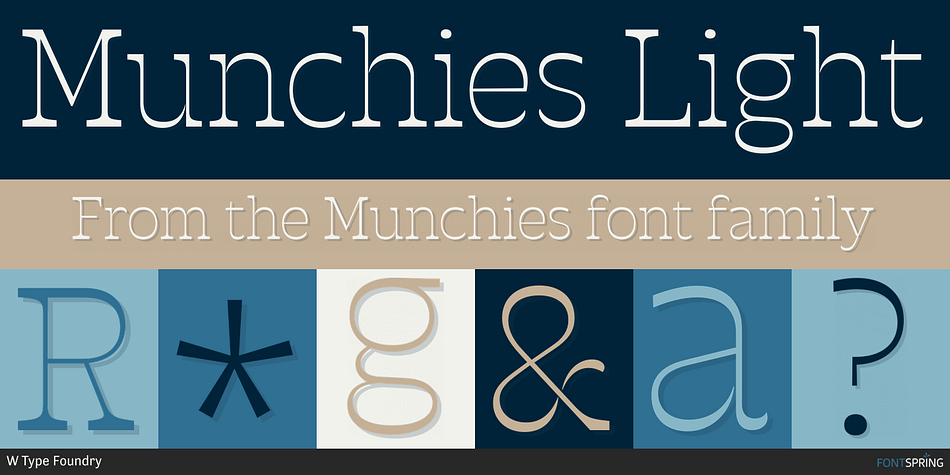
Munchies Light
Designed by Gaspar Muñoz, Munchies is a display serif and western font family. This typeface has fourteen styles and was published by W Type Foundry.
Munchies is a reverse contrast slab-serif font family. Inspired by the volume and size of 19th century wood letterpress blocks and the Italian Caslon language. Munchies has 12 variants, from Heavy to Thin, with opentype options in a set consisting of uppercase, lowercase, small caps, ligatures, and alternate letters (A, M, N, V, W, &, Arrows, *).
Munchies is divided into two subfamilies: Normal and Display. The Normal style has an appearance reminiscent of Western posters with a “measured” contrast.
While the Display style takes the contrast to the extreme. Both styles are also available in Variable version.
The inverted contrast makes it an interesting and striking looking typeface that stands out in any context. Perfect for headlines, bold branding, or animation like kinetic typeface.